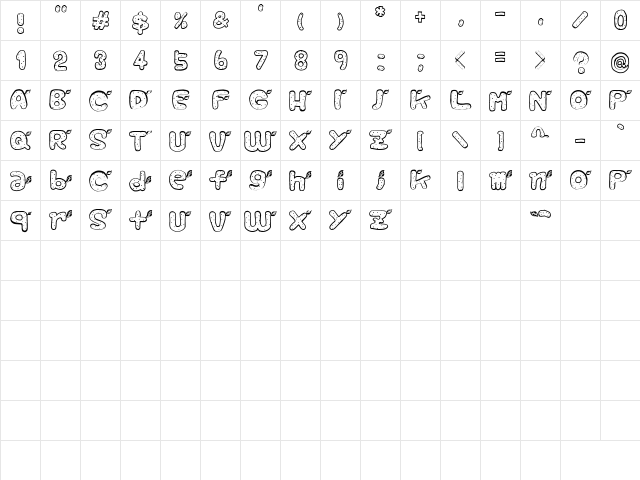
ReafFont Regular
Design Context for ReafFont Typeface
ReafFont is a composed and adaptable typeface that performs quietly and consistently across a wide range of design contexts.